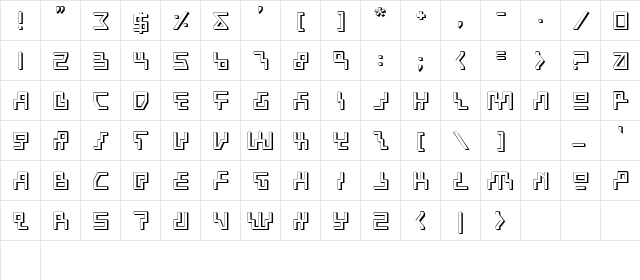
Beam Rider 3D 3D
Design Context for Beam Rider 3D Typeface
Beam Rider 3D is a composed and adaptable typeface that performs quietly and consistently across a wide range of design contexts.